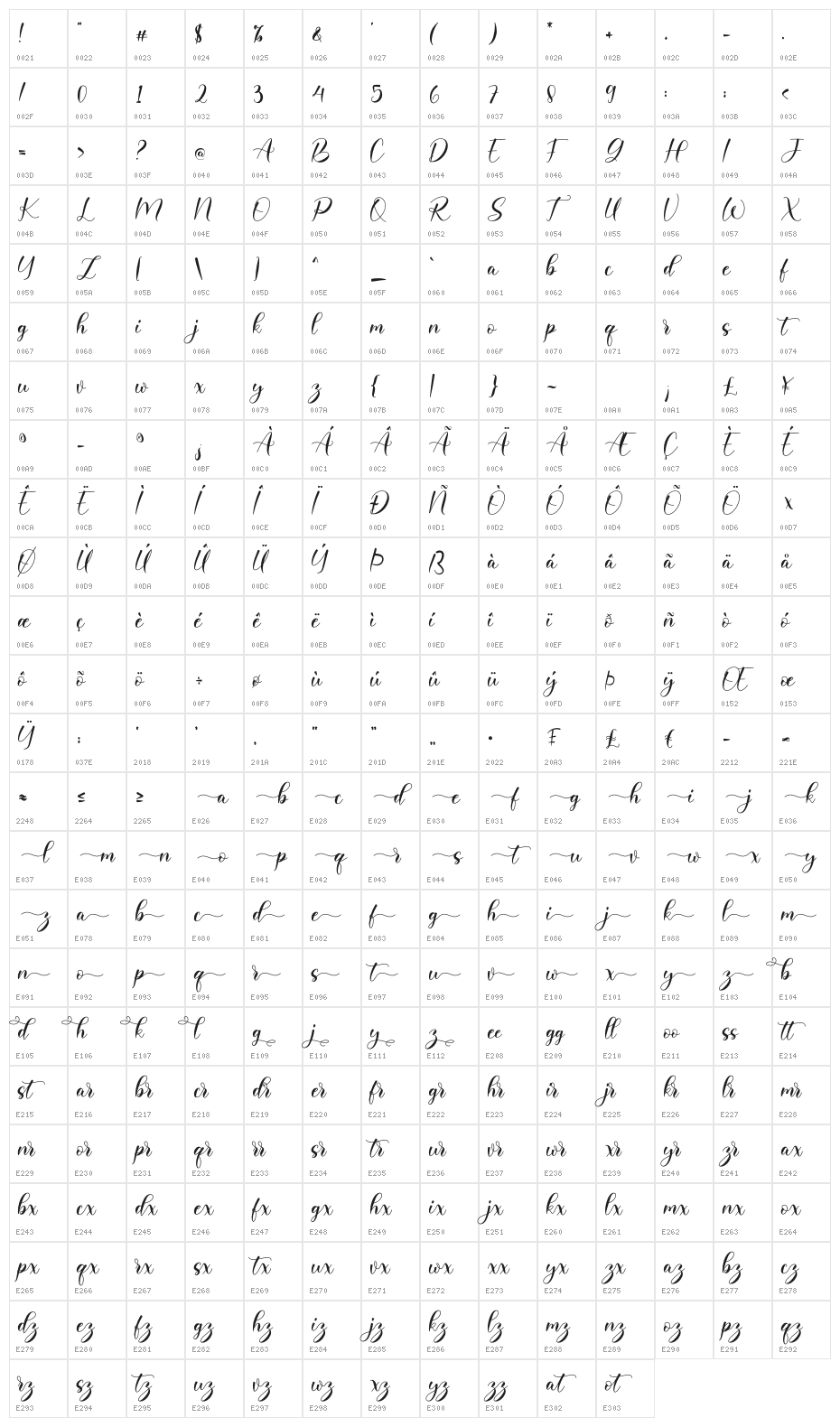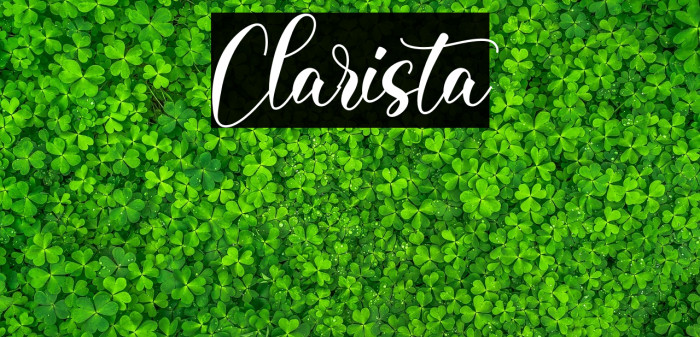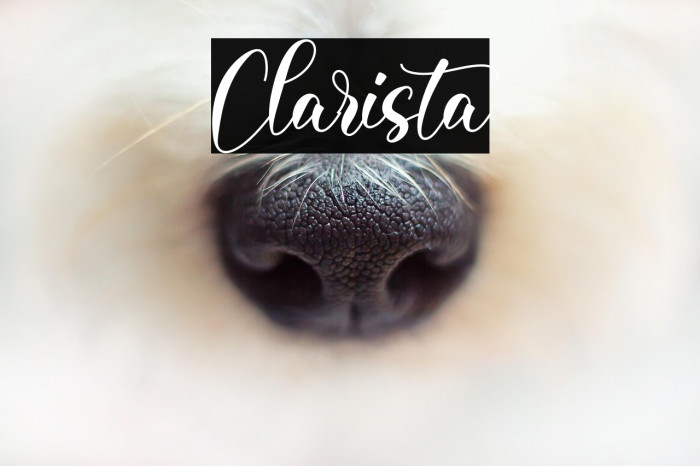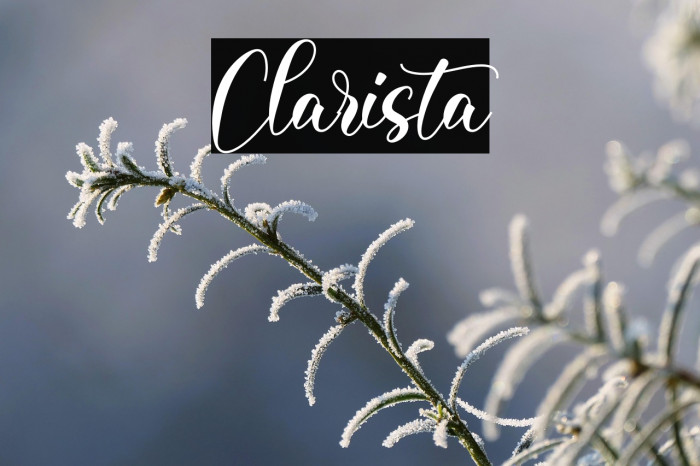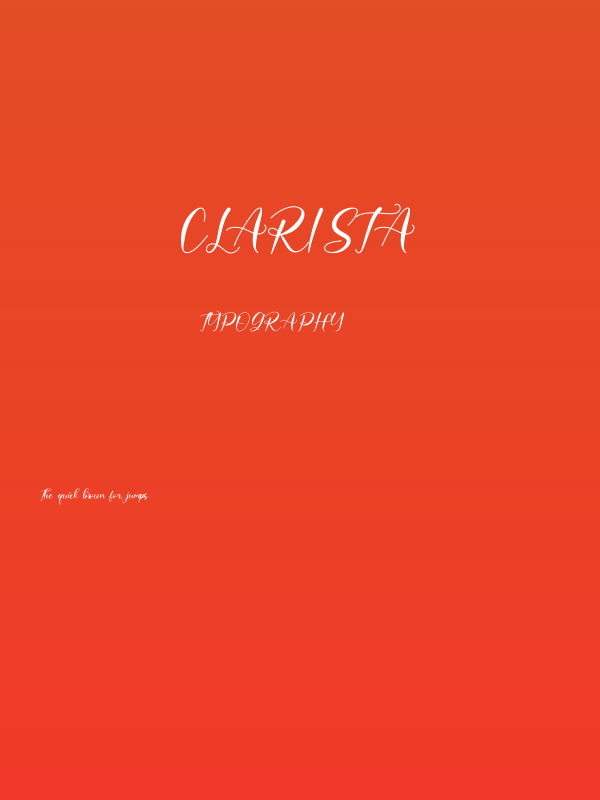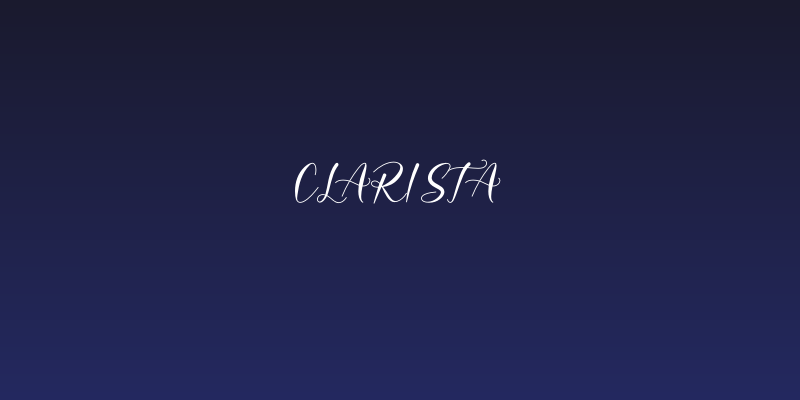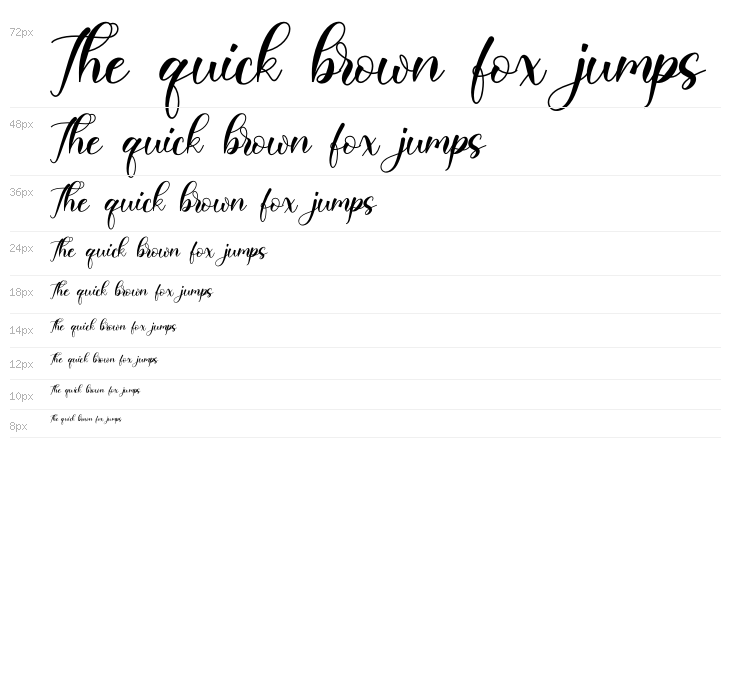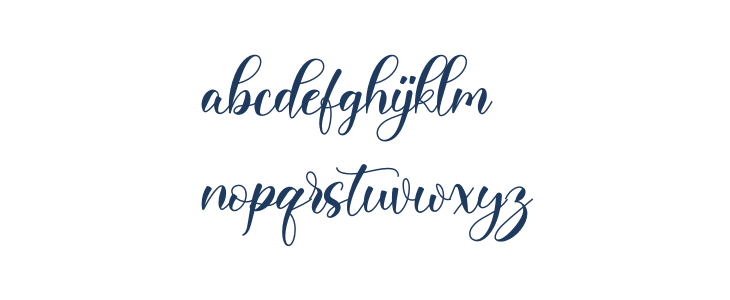
Clarista Font
Clarista Description
This elegant script font features flowing, cursive letterforms that exude sophistication and grace. The uppercase letters are characterized by sweeping curves and flourishes, while the lowercase letters maintain a consistent fluidity, enhancing readability. The numerals are stylishly crafted, complementing the overall aesthetic. Special characters are thoughtfully designed, maintaining the font's cohesive look. This font is perfect for projects that require a touch of elegance and refinement, such as wedding invitations, luxury branding, and high-end packaging.
| Overall Style | Elegant, Sophisticated |
| Use Case | Logos, Invitations, Branding |
| Proposed Projects | Ideal for wedding invitations, luxury branding, high-end packaging, and elegant stationery. |